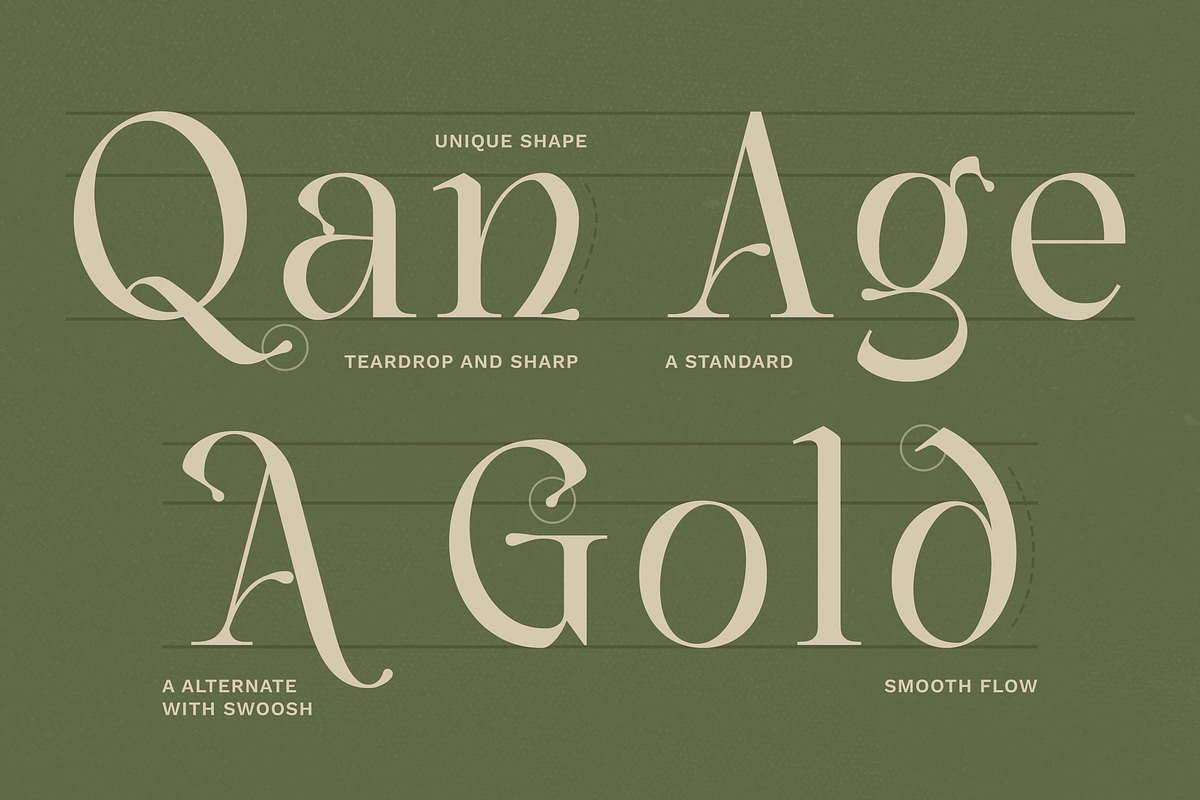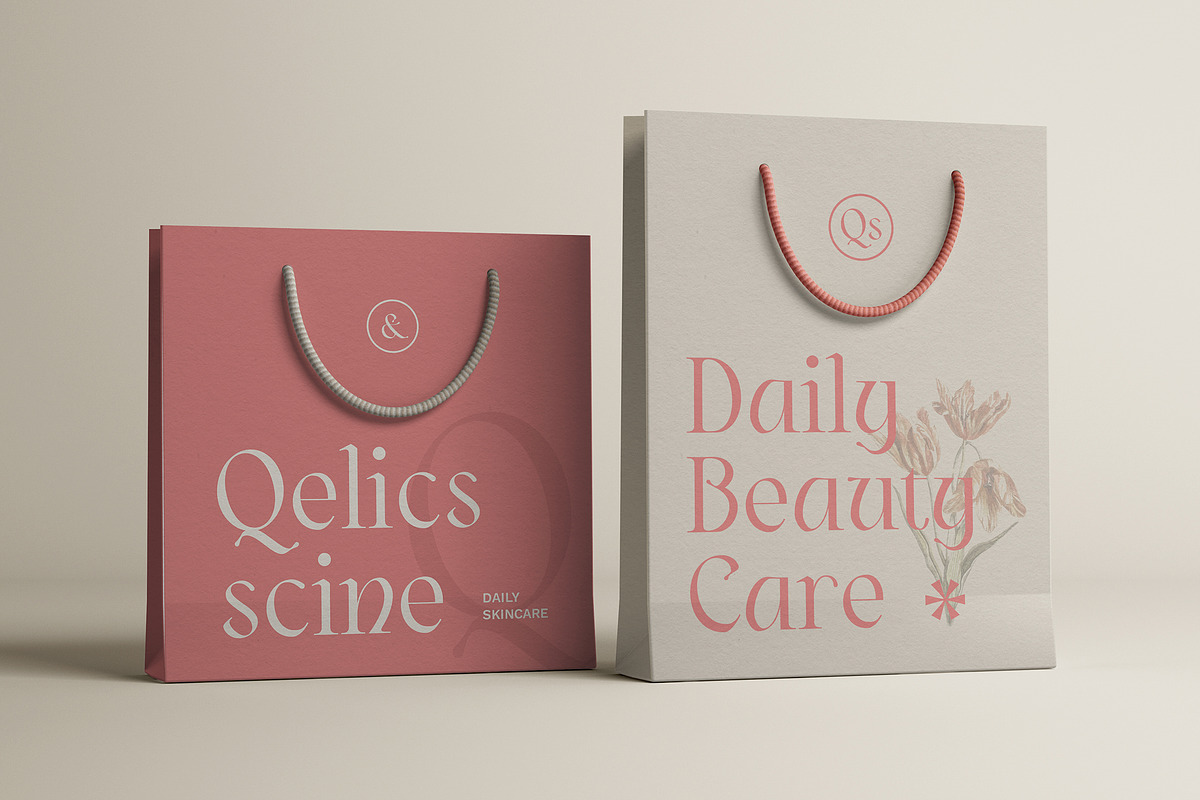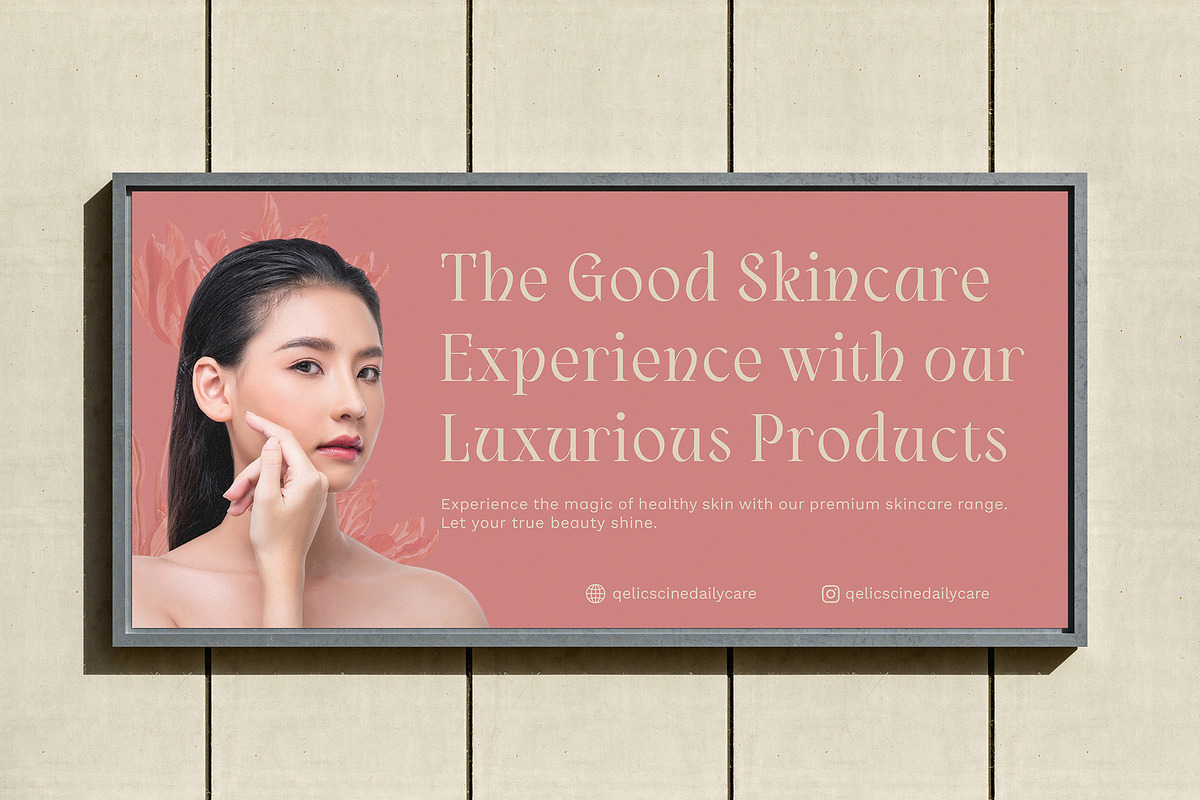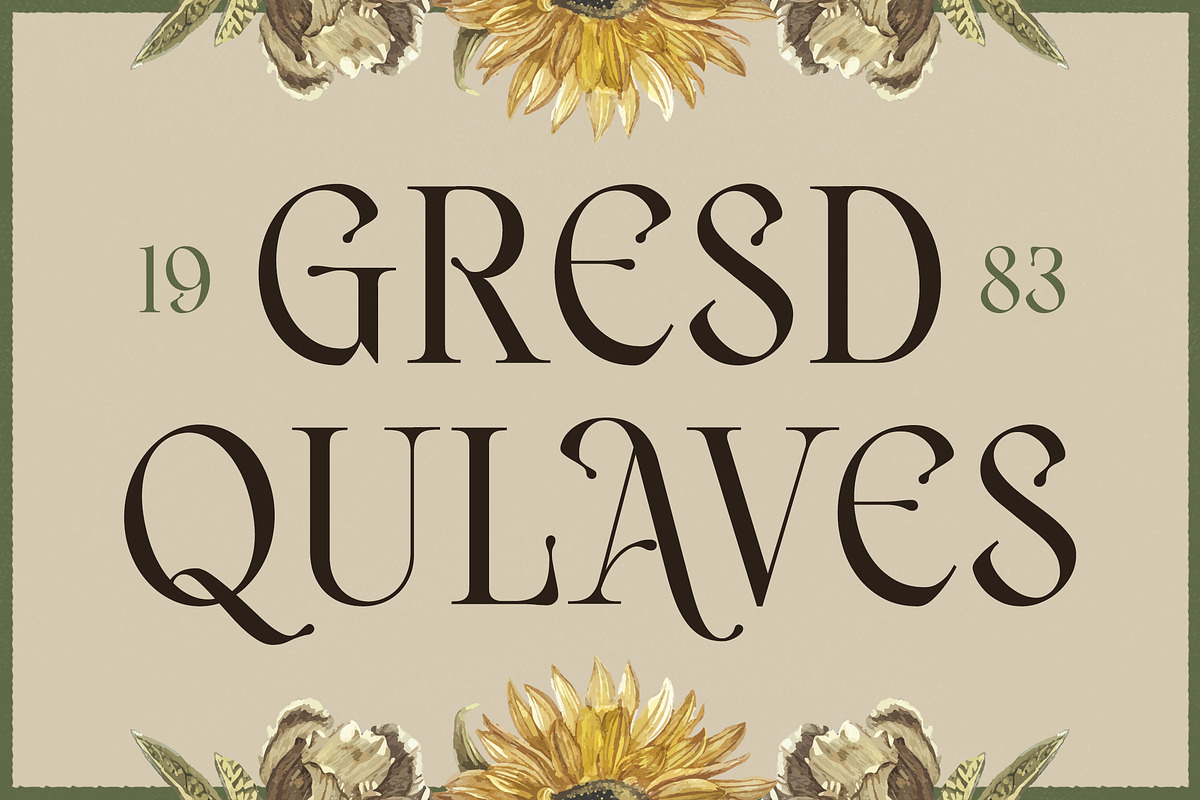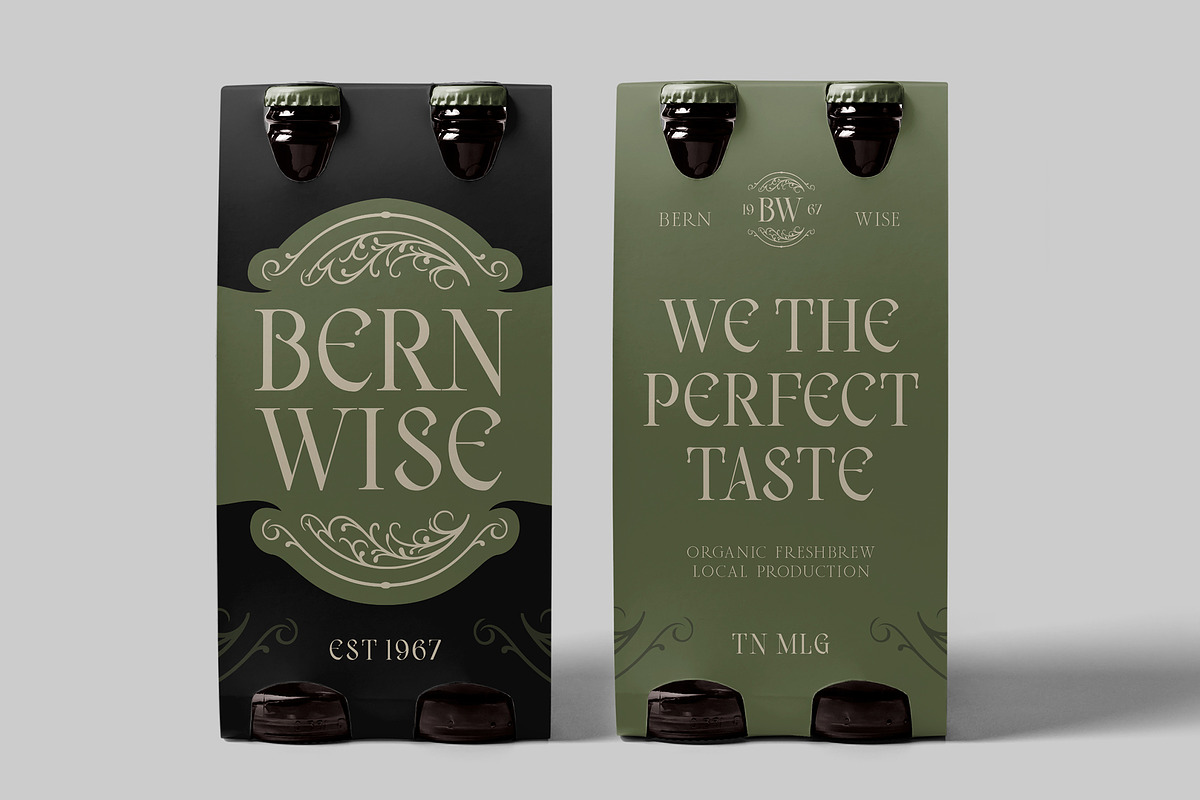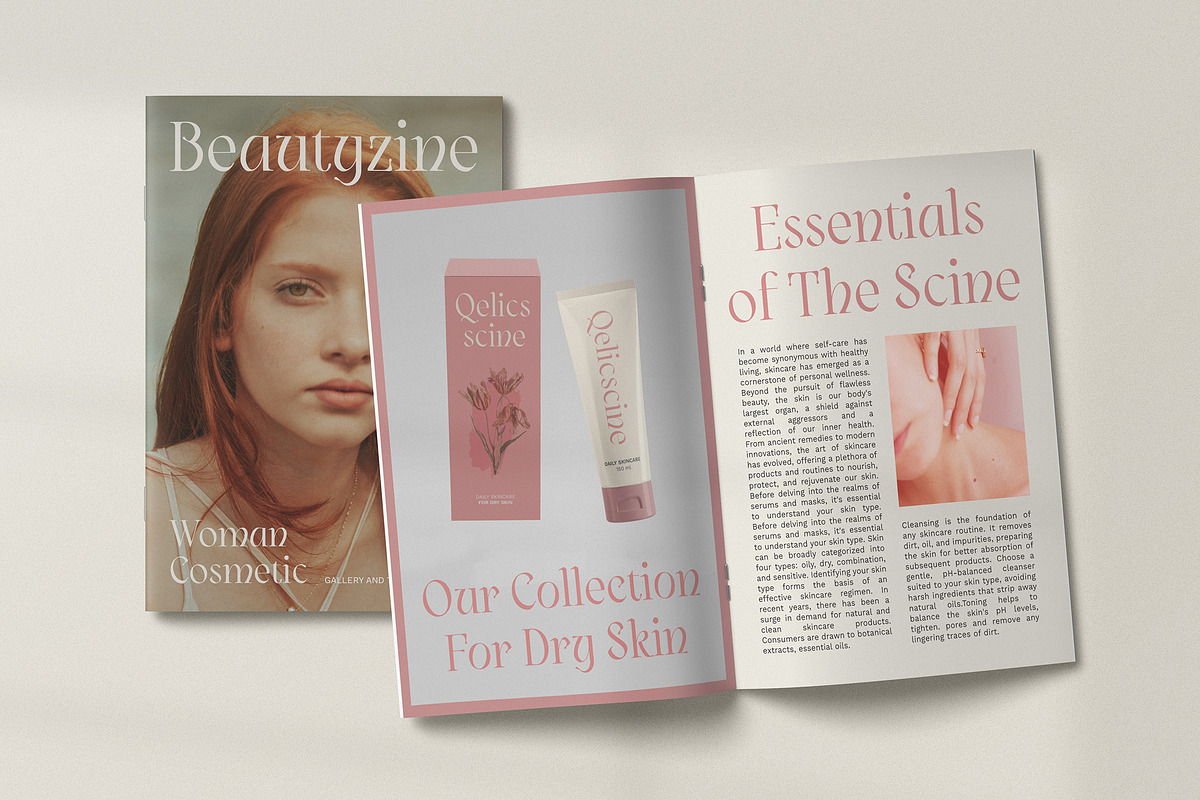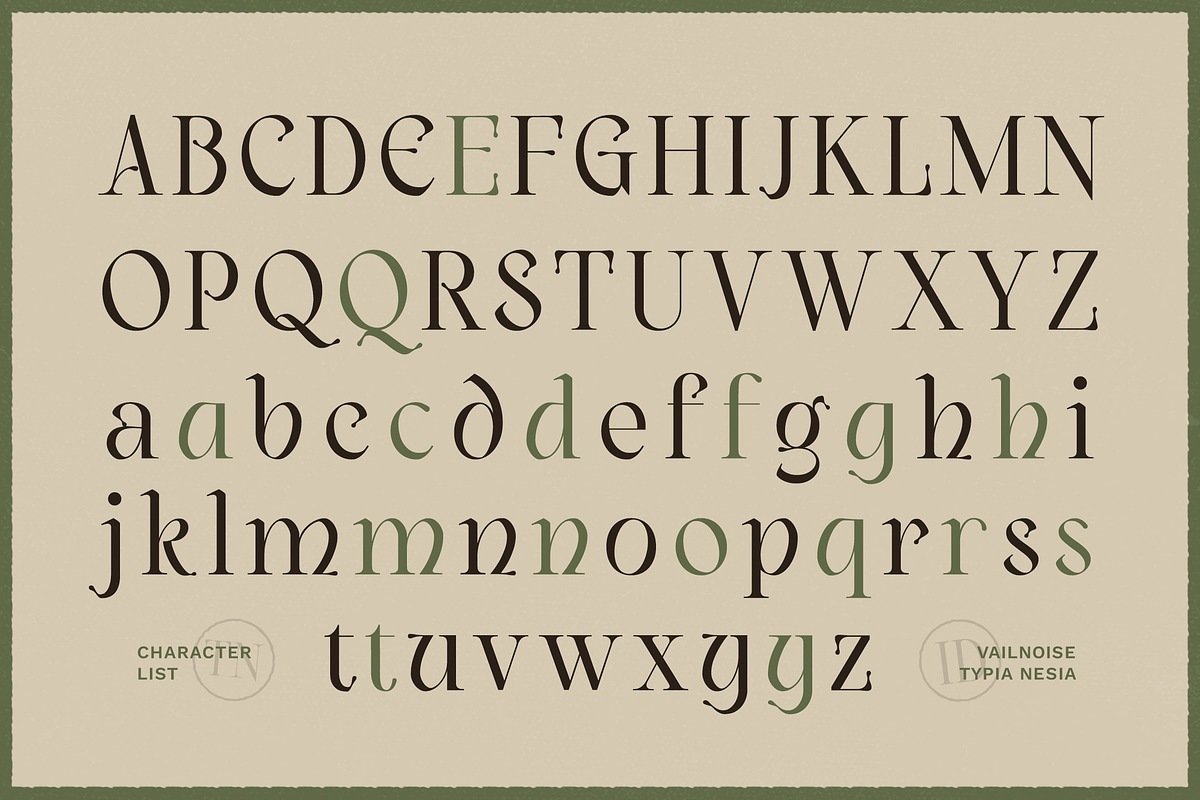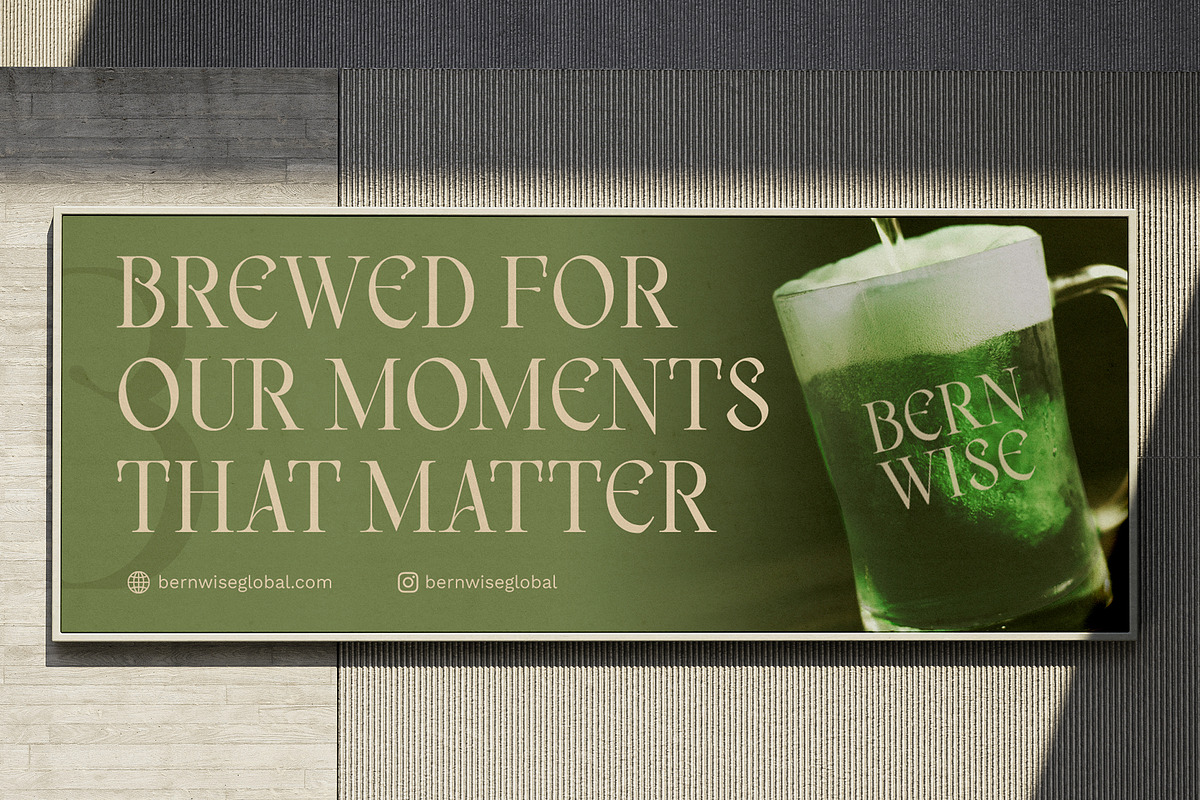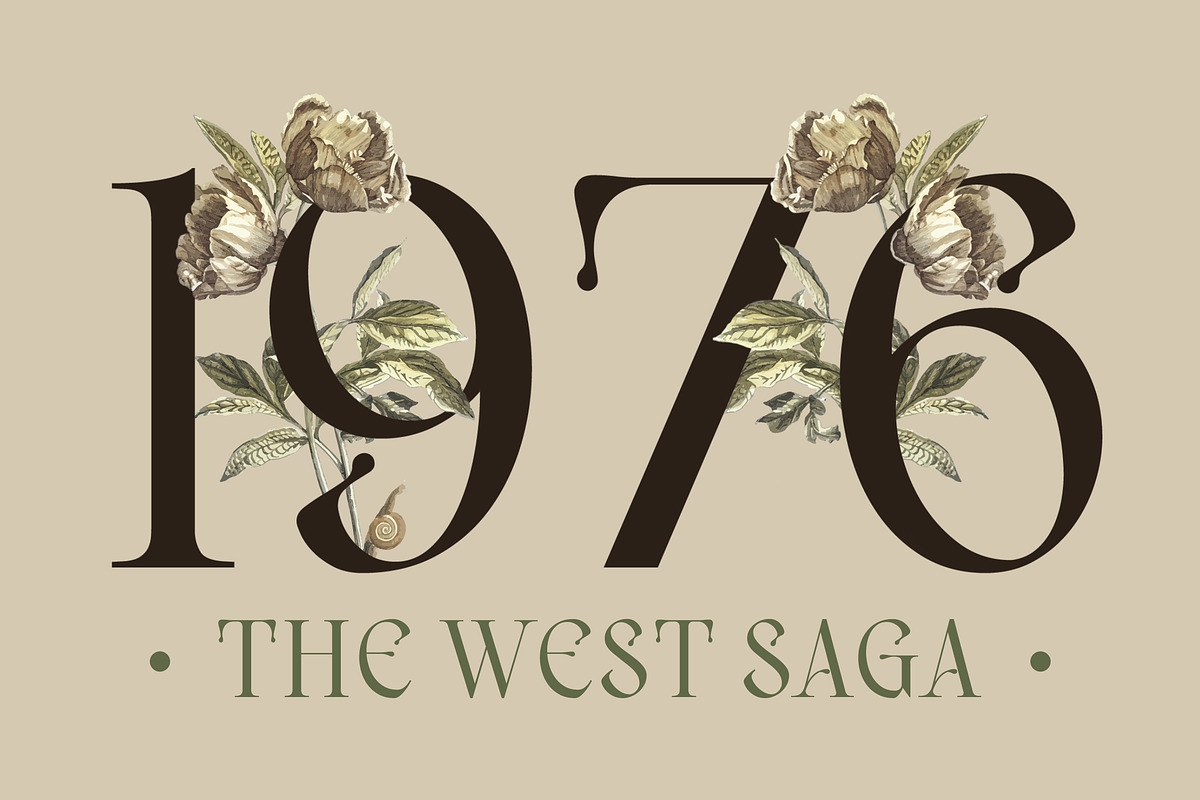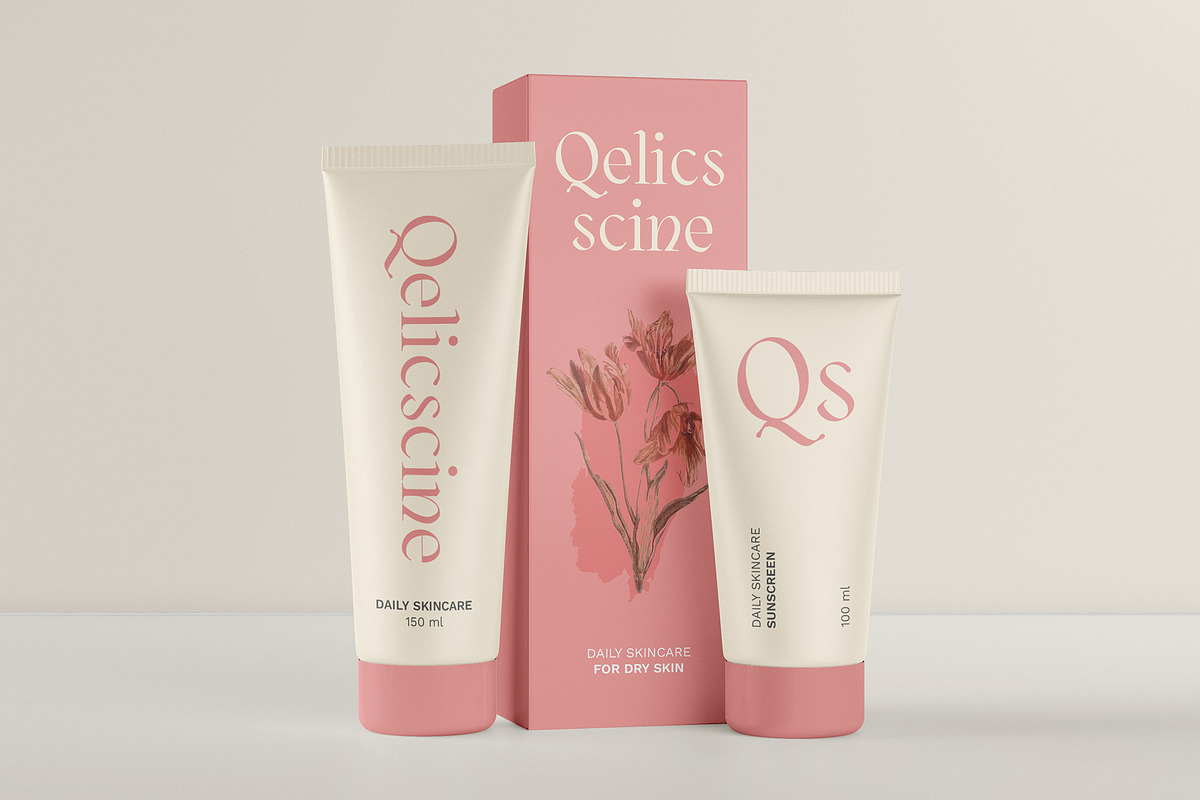
Vailnoise - Classic Vintage Serif
Vailnoise - Classic Vintage Serif - Elegant Beauty Luxury & Royal Display Font
Vailnoise is a Classic Vintage Serif font that embodies the charm and elegance of a bygone era. Its timeless design features delicate serifs and a classic structure, making it perfect for projects that require a touch of vintage look. Ideal for branding, wedding invitations, editorial design, retro-themed projects, elegant packaging, and anymore, you can use Vailnoise, for consider the overall aesthetic and target audience to ensure your project effectively communicates the intended vintage and elegant message. Vailnoise adds a sense of nostalgia and refinement to any design. Its versatility ensures it performs beautifully in both print and digital contexts, from logos and headlines to detailed body text. Comes with ligatures for seamless and natural character combinations. It includes a complete set of uppercase and lowercase letters, punctuation, numerals, and alternate characters. Additionally, it offers extensive multilingual support, making it a versatile tool for global use. Crafted with precision for classic typography, Vailnoise blends historical elegance with modern usability. Its meticulous design ensures readability and aesthetic appeal, making it a reliable choice for designers seeking to infuse their work with vintage charm and sophistication.